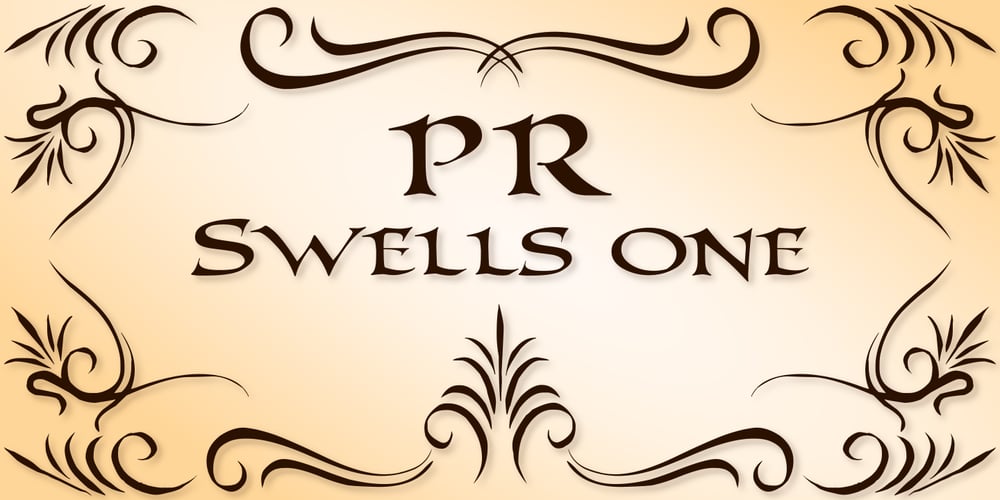
PR Swells 01 Font Family was designed by Peter Rempel and published by PR Fonts. PR Swells 01 contains 1 styles and family package options. Drawn with a pointed brush, these have greater contrast and weight variation than the PR-Swirlies series.